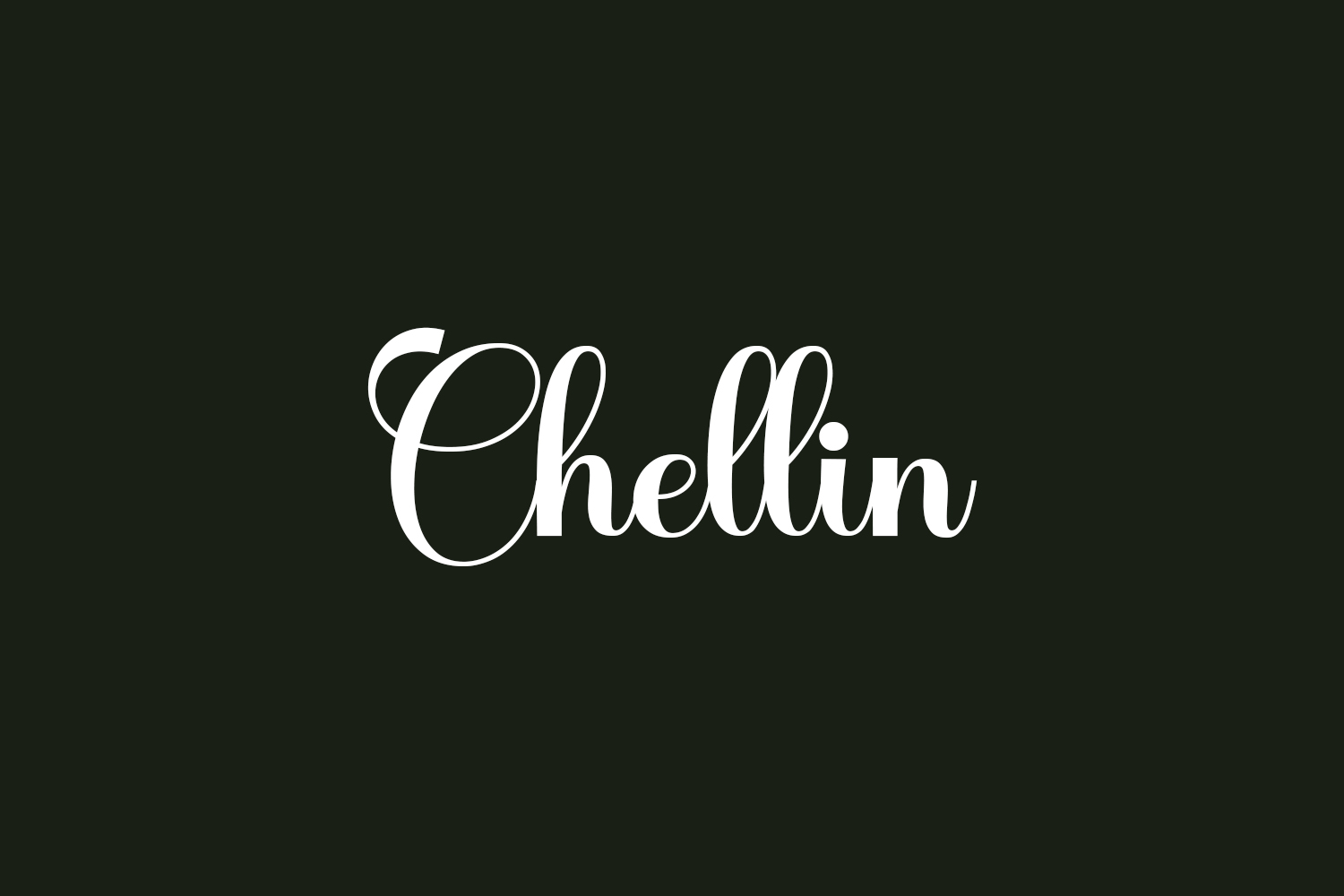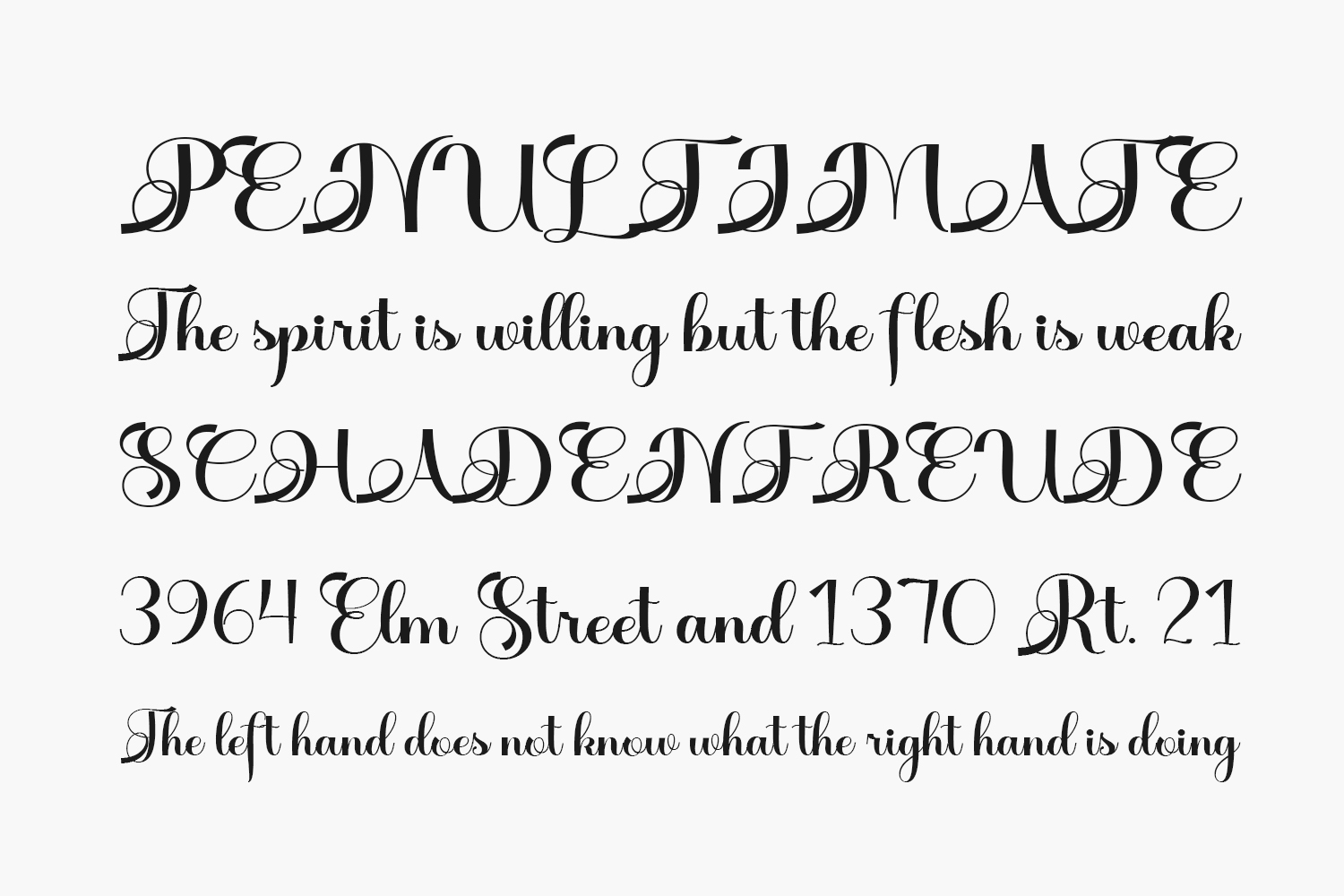
Chellin Free Font is a modern, bold and elegant handwritten font. It looks beautiful on a variety of designs requiring a personalized style, such as wedding invitations, thank you cards, weddings, greeting cards, logos and so on. Chellin Free Font was designed by Nurul Kamal and is free for personal use only. Please purchase the full version for commercial use.